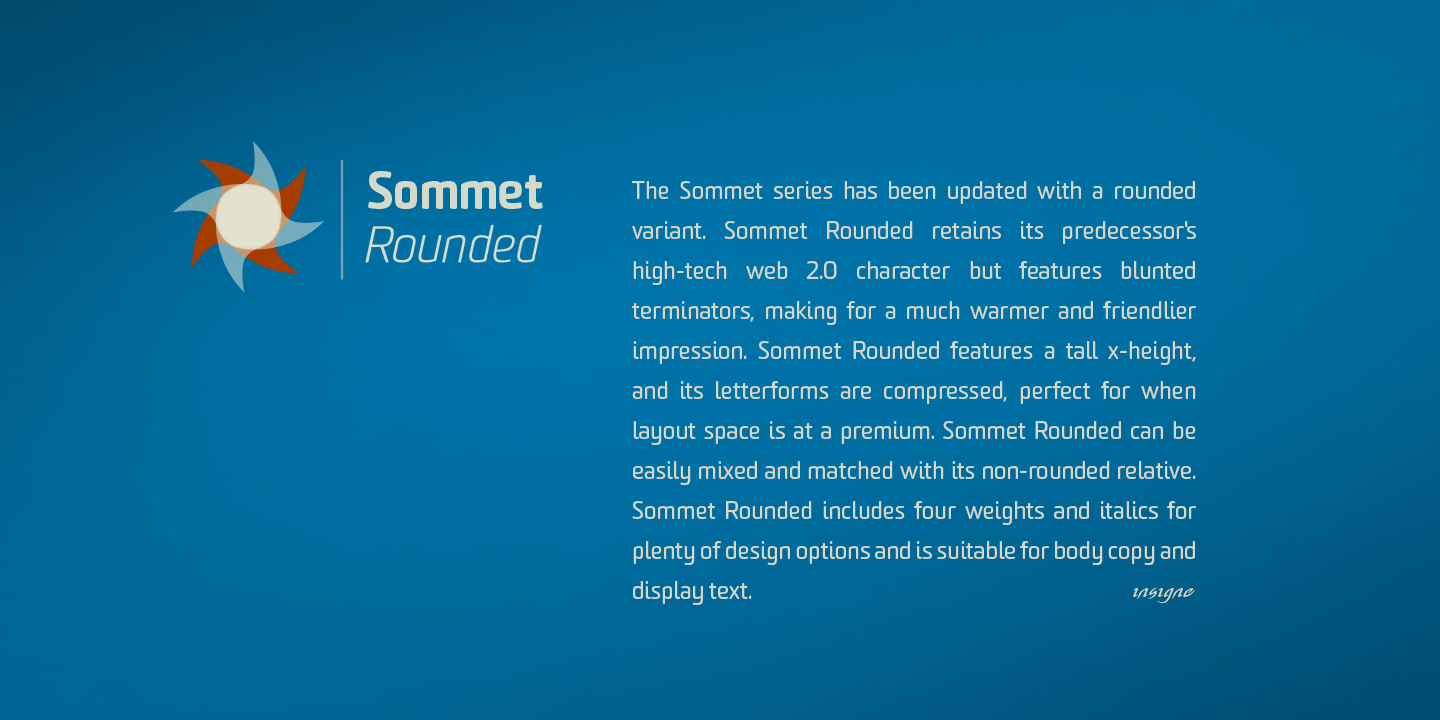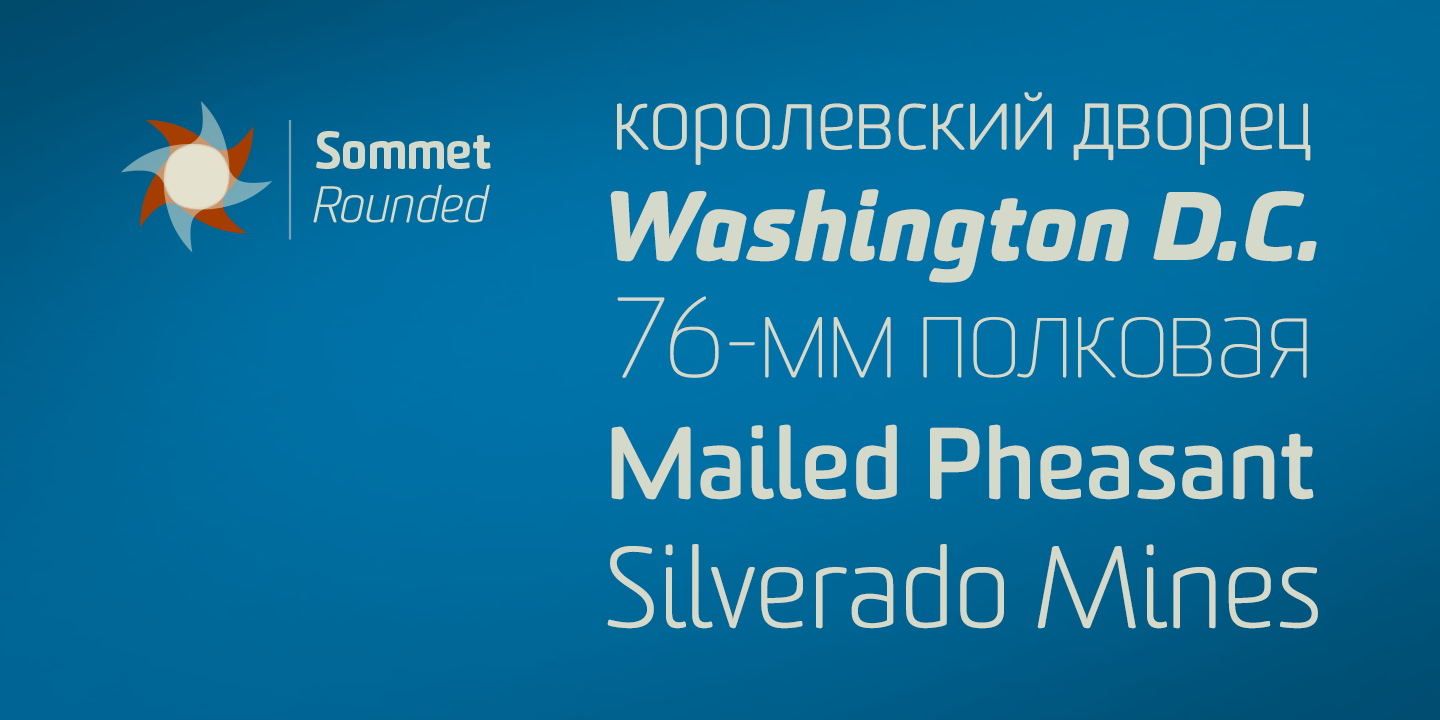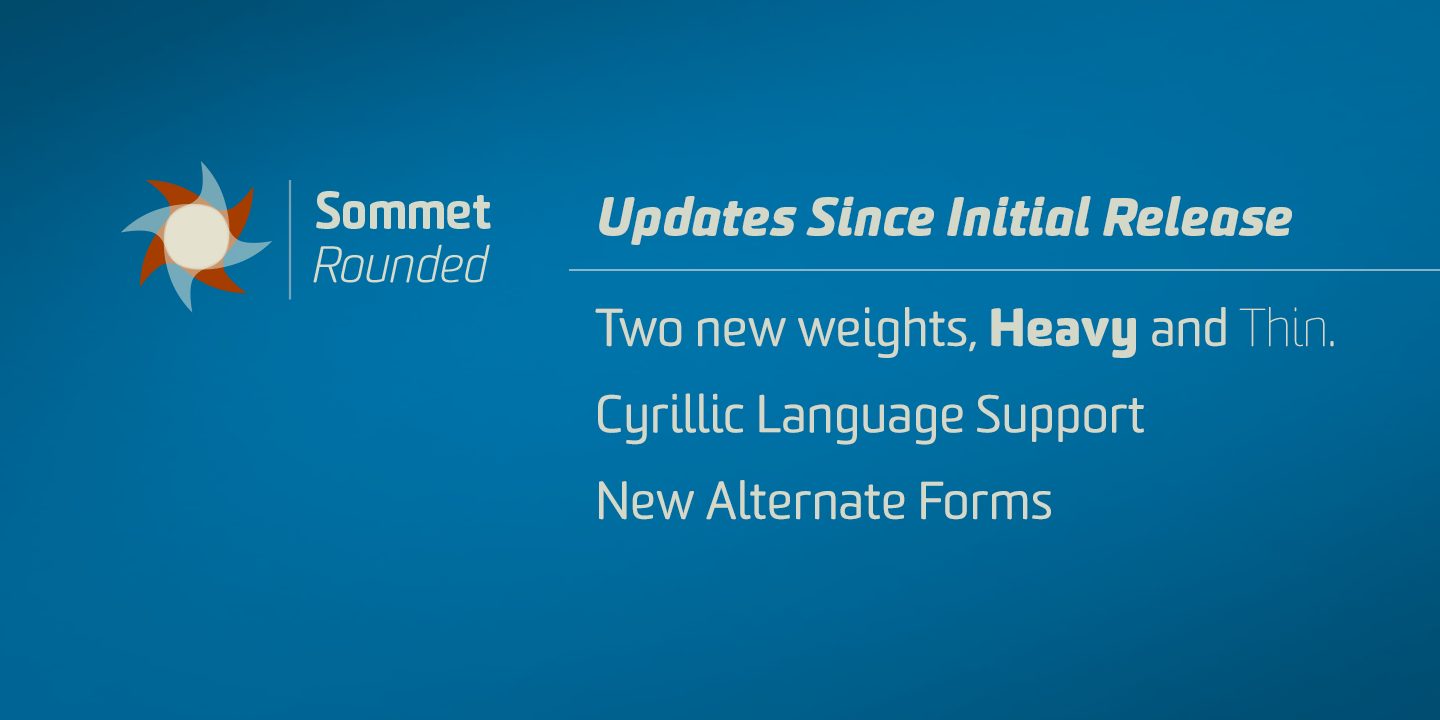
Sommet Rounded
Font Family by Insigne
The Sommet series has been updated with a rounded variant.
Sommet rounded retains its predecessor's high-tech web 2.0 character but features blunted terminators, making for a much warmer and friendlier impression.
Sommet Rounded features a tall x-height, and its letterforms are compressed, perfect for when layout space is at a premium Sommet Rounded can be easily mixed and matched with its non-rounded relative.
Sommet Rounded includes four weights and italics for plenty of design options and is suitable for body copy and display text.